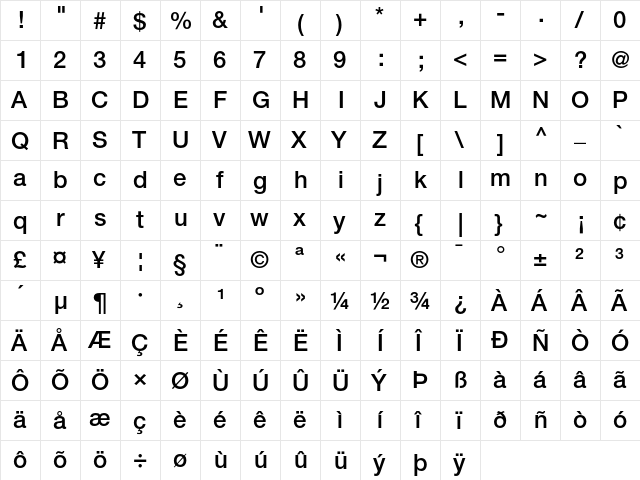
Helvetica Neue Regular Font Preview
Helvetica Neue Regular
Design Context for Helvetica Neue Typeface
Helvetica Neue is a composed and adaptable typeface that performs quietly and consistently across a wide range of design contexts.
Pro Tip: Pair Helvetica Neue with a font of contrasting weight or personality to build a more expressive typographic hierarchy.